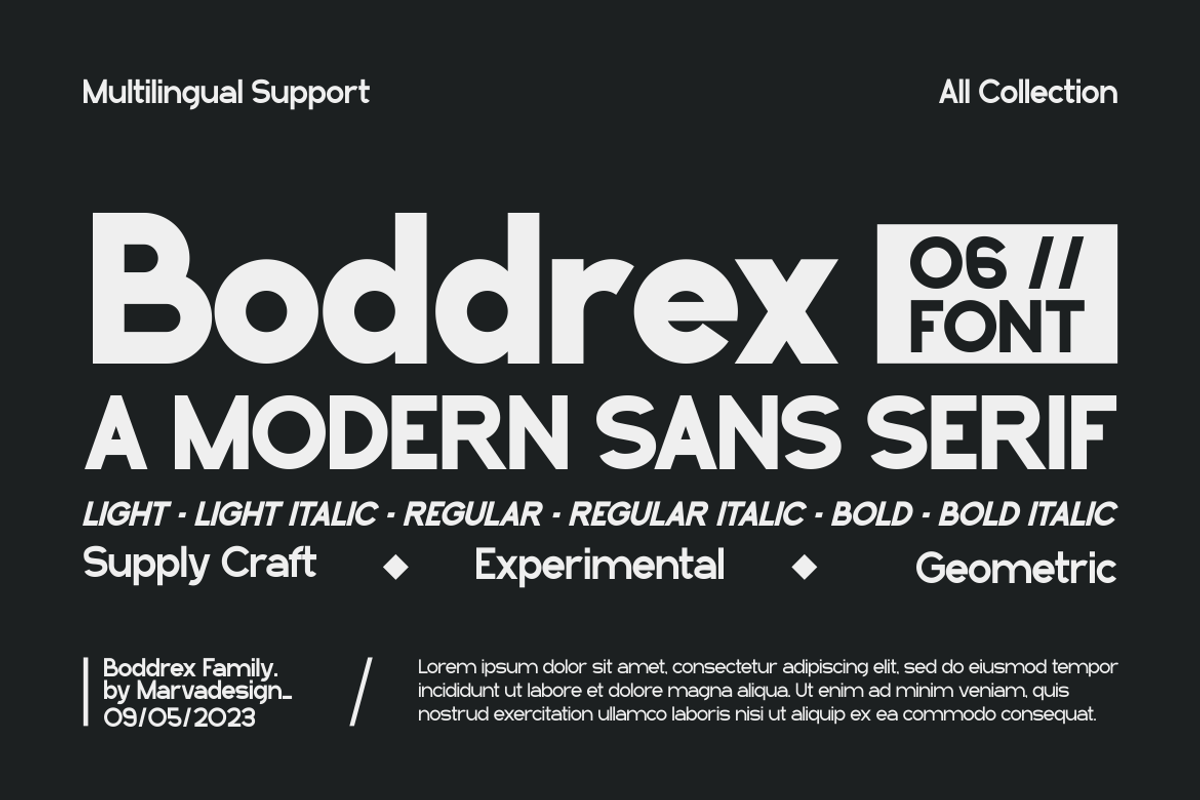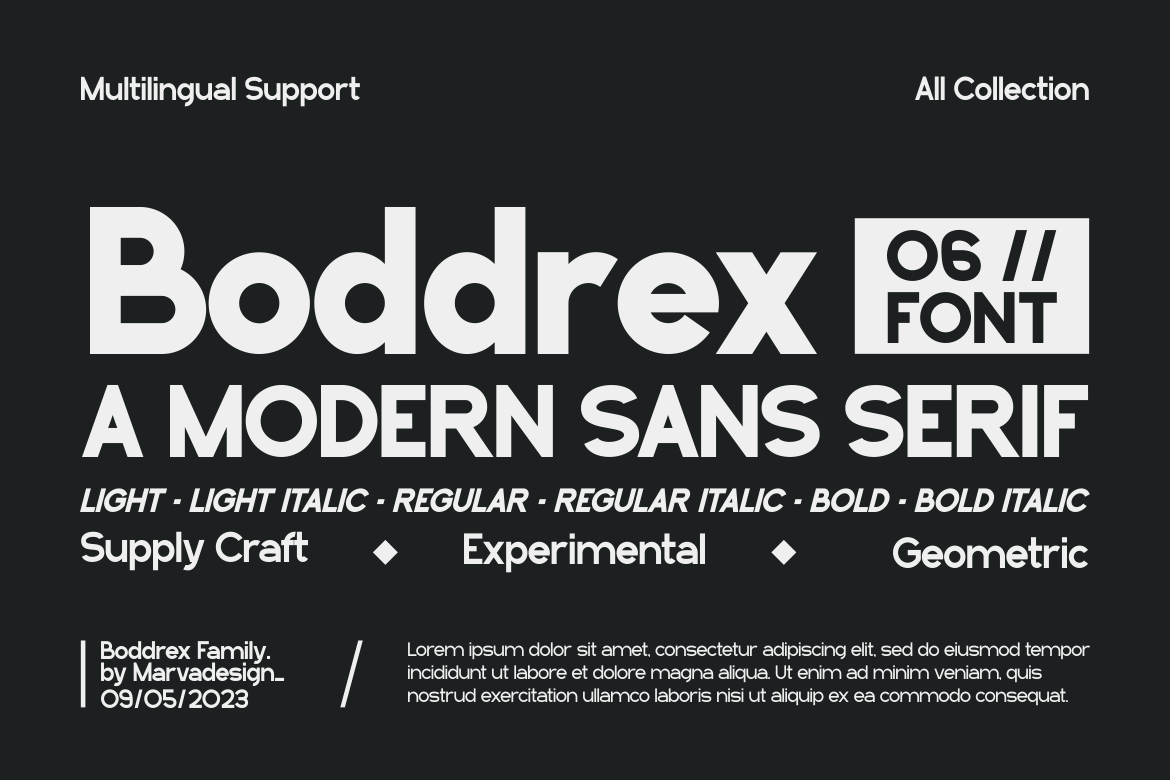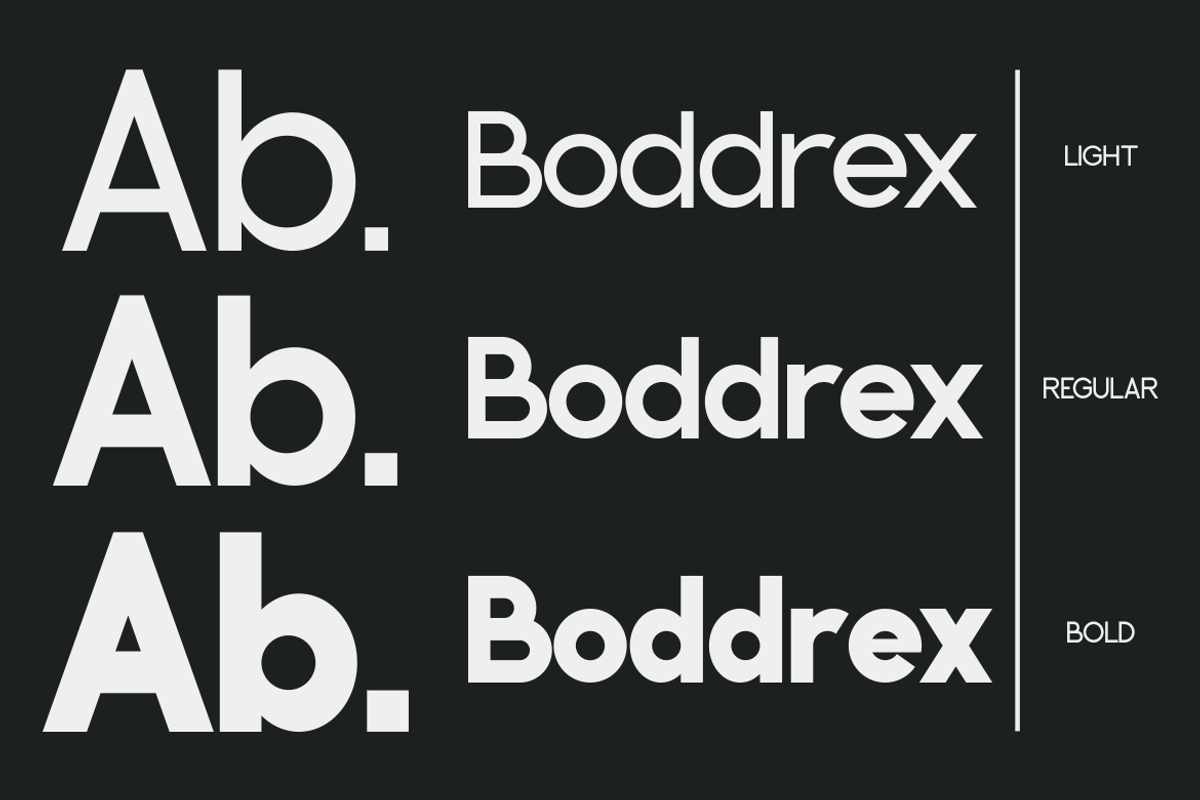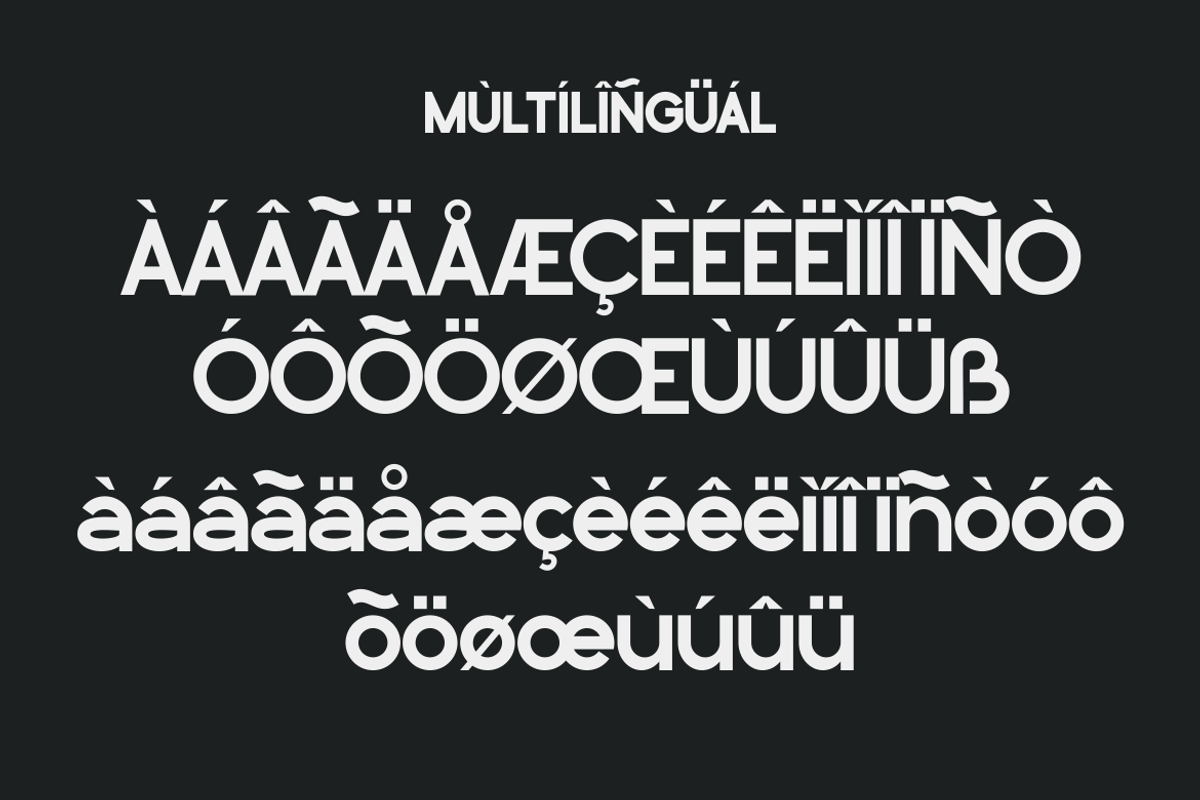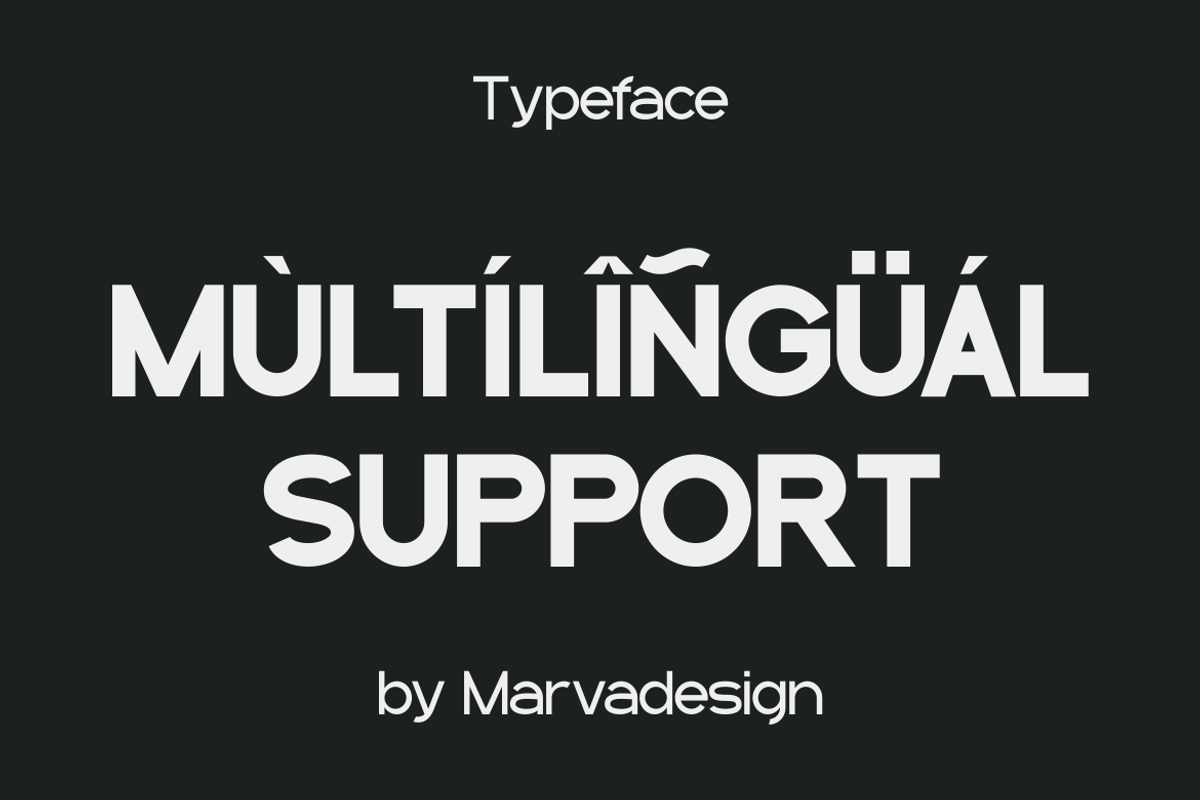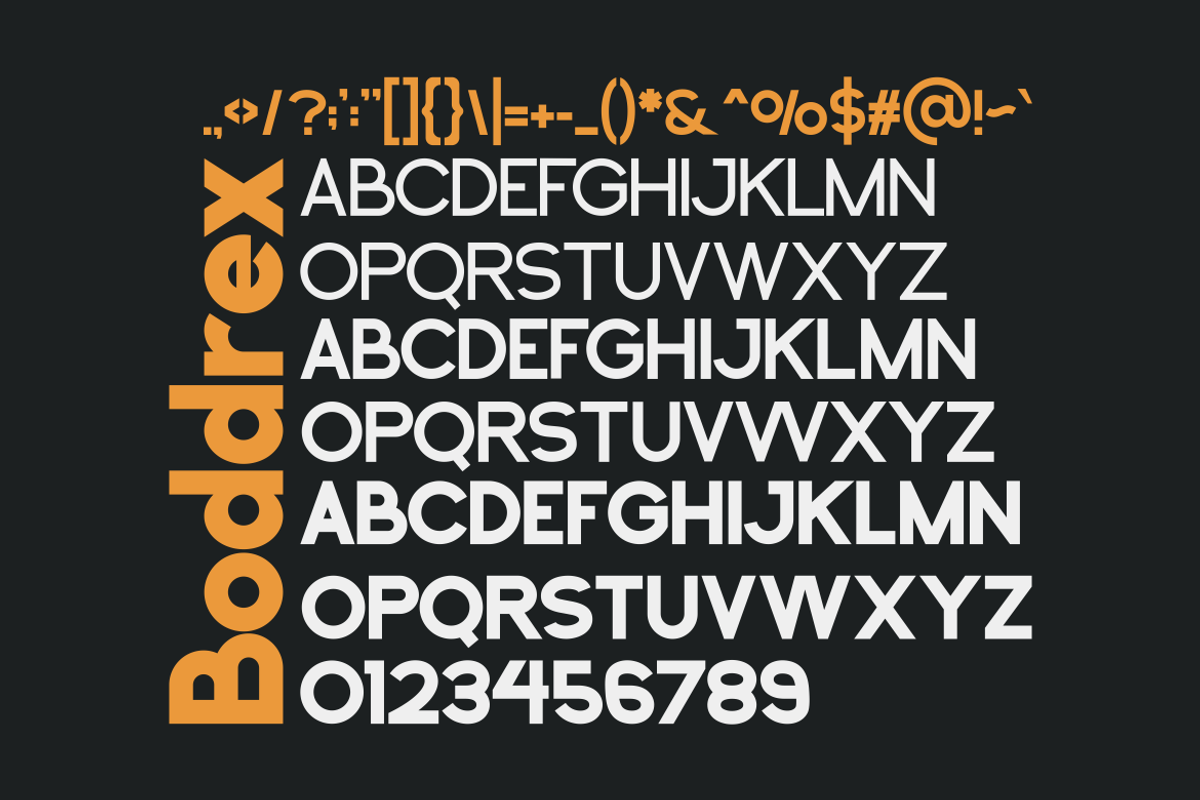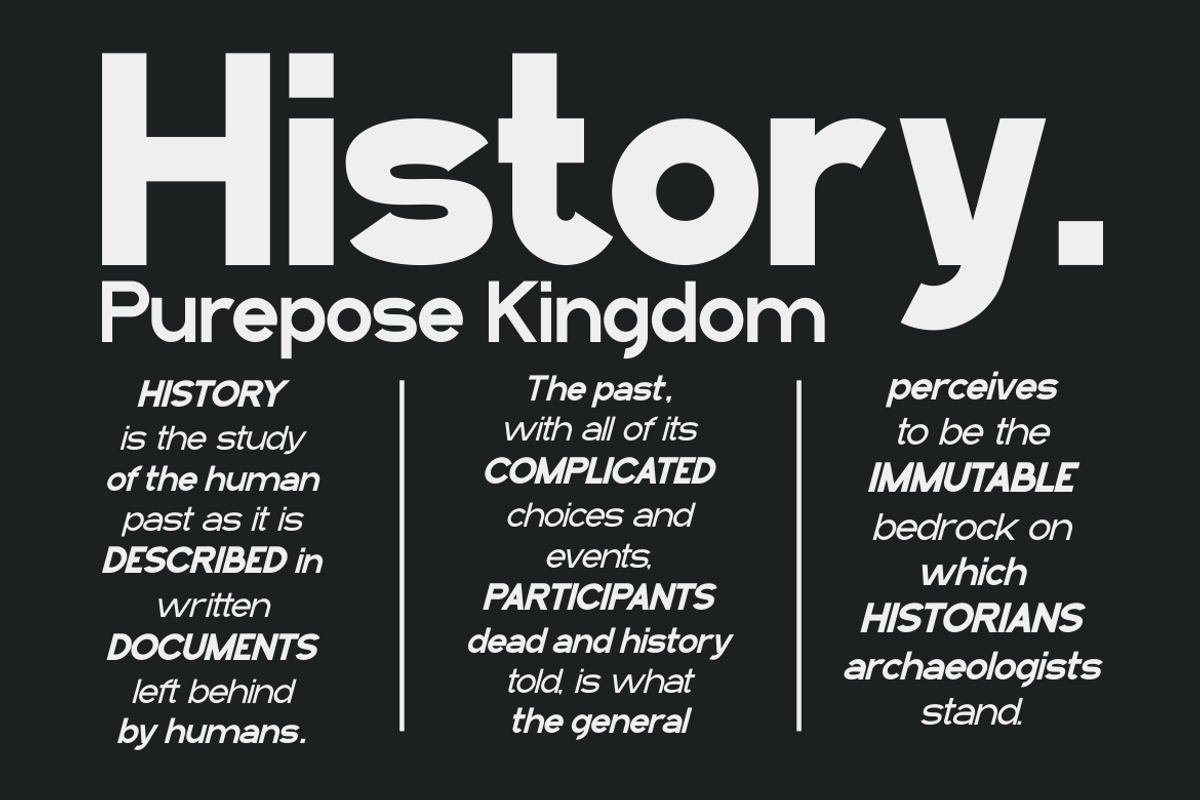
Boddrex - A Modern Sans Serif Font
Introducing our new product Boddrex Font - Modern Font Boddrex Font** - Modern Font is a bold and authentic display font. The font is suitable for any branding project like logo, Template, Product and many more. outstanding in a wide range of contexts.
Regular, Regular - Italic, Light, Light - Italic, Bold, Bold - Italic